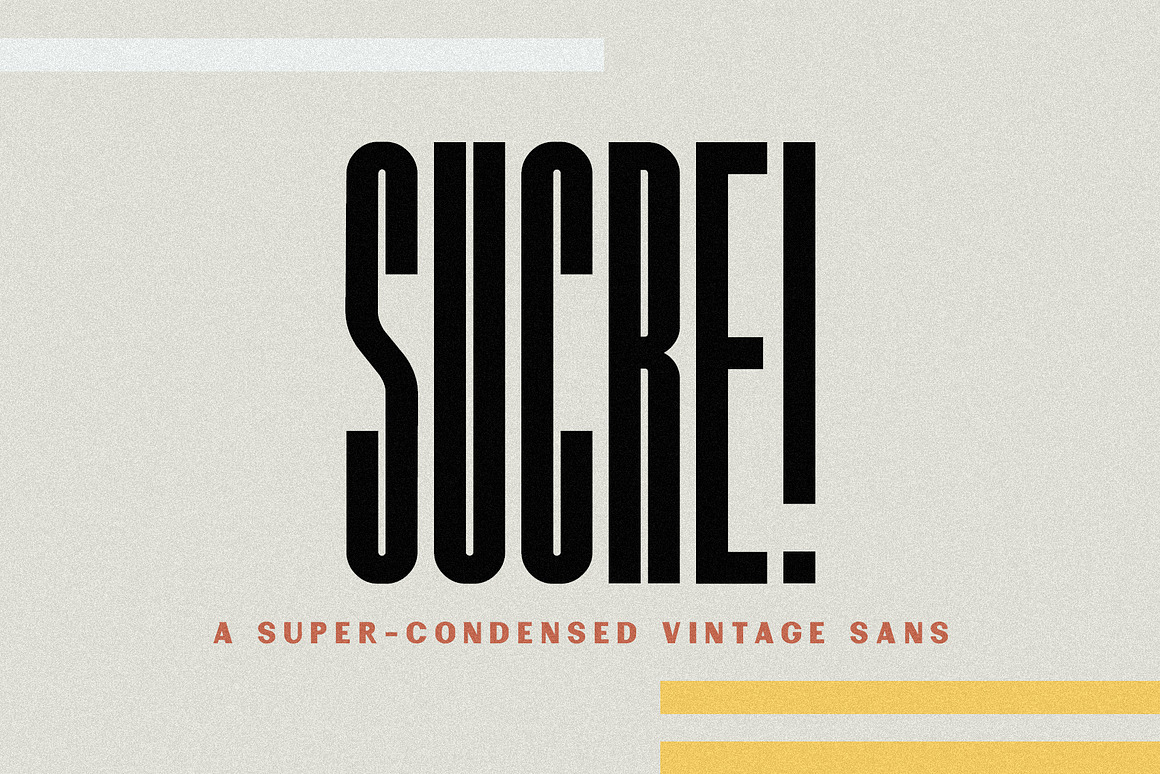
Sucre | Vintage Condensed Sans Font
Sucre Vintage Condensed Sans Font is perfect for artisan confectionery branding, vintage bakery signage, retro candy packaging, classic soda bottle labels, nostalgic ice cream parlor graphics, traditional sweet shop logos, heritage food brand advertising, old-fashioned candy store displays, vintage dessert menu designs, and nostalgic confectionery festival posters. This charming typeface excels in applications where sweet nostalgia, artisanal craftsmanship, and vintage confectionery aesthetics are central brand elements.
What makes Sucre Vintage Condensed Sans Font exciting is its perfect blend of space-efficient condensed proportions with authentic vintage character that captures the golden age of American confectionery design. The font features carefully crafted letterforms with subtle rounded details and period-appropriate weight distribution that evokes classic candy packaging and traditional sweet shop signage. Its condensed structure maximizes design flexibility while maintaining the nostalgic charm that instantly transports viewers to simpler times when handcrafted sweets were neighborhood treasures.
The Sucre Vintage Condensed Sans Font family typically includes multiple weights from Light to Bold, often featuring outline variations and decorative alternates that enhance its vintage appeal. Many versions include stylistic ligatures, period-appropriate numerals, and special symbols related to confectionery and baking traditions. Some collections feature complementary ornamental elements including vintage borders, decorative frames, and sweet-themed illustrations that complete the authentic confectionery aesthetic for comprehensive brand applications.
Whether you're developing brand identities for artisan candy makers, creating packaging for heritage food products, or designing materials that celebrate traditional confectionery craftsmanship, Sucre Vintage Condensed Sans Font Free Download provides the authentic sweet character that resonates with audiences who appreciate handmade quality and nostalgic charm. Its efficient condensed structure makes it ideal for packaging applications where space is premium but personality is essential. The font's ability to convey both tradition and playfulness makes it particularly valuable for specialty food businesses, artisan confectioners, and vintage-inspired brands seeking to differentiate themselves through authentic craftsmanship and memorable nostalgic experiences.